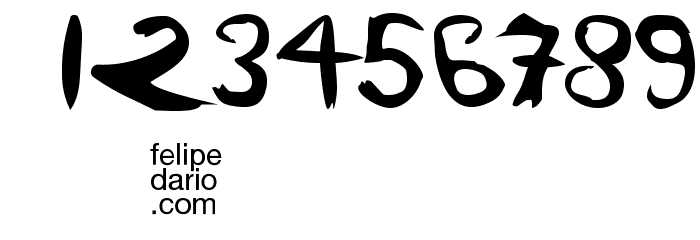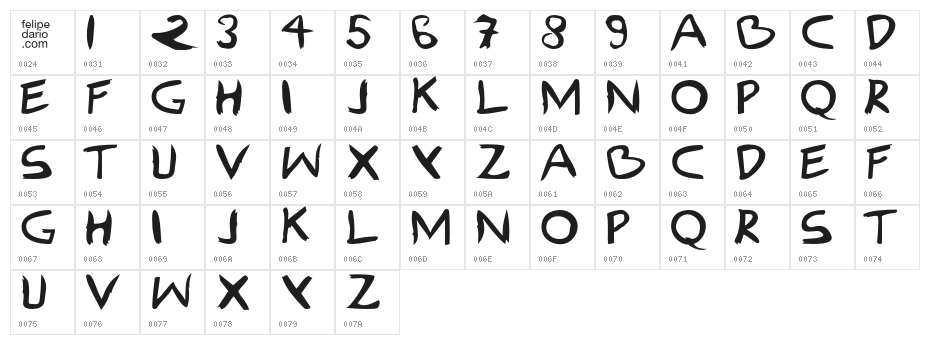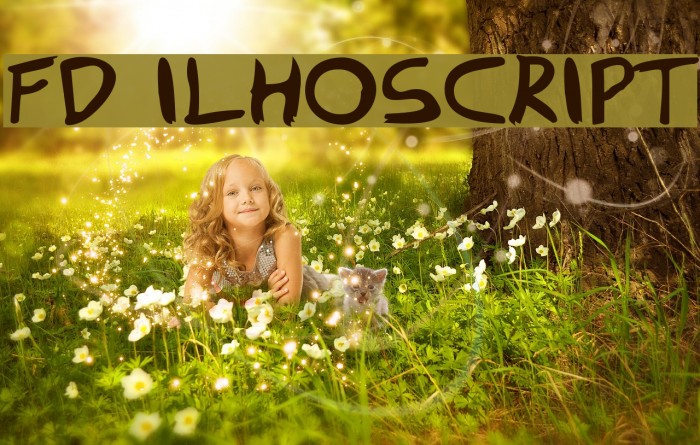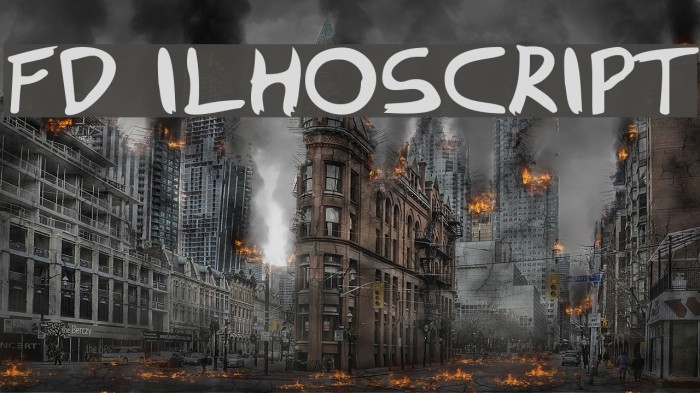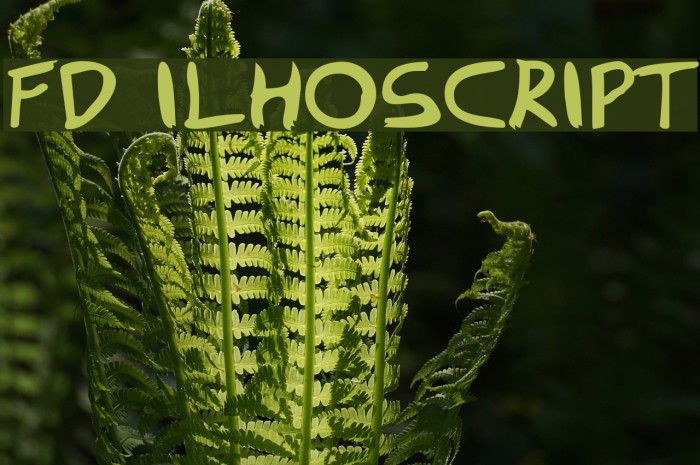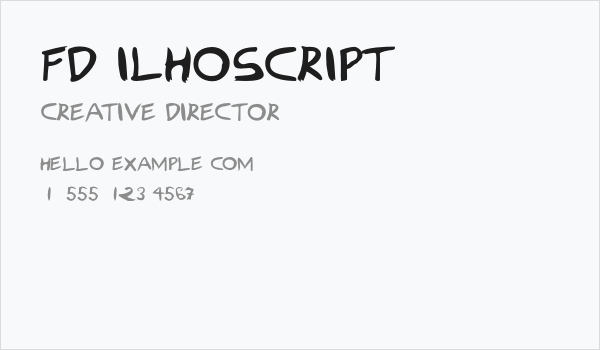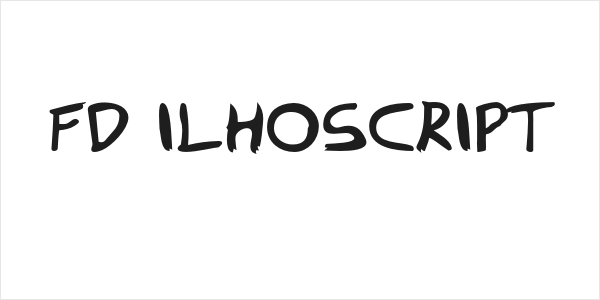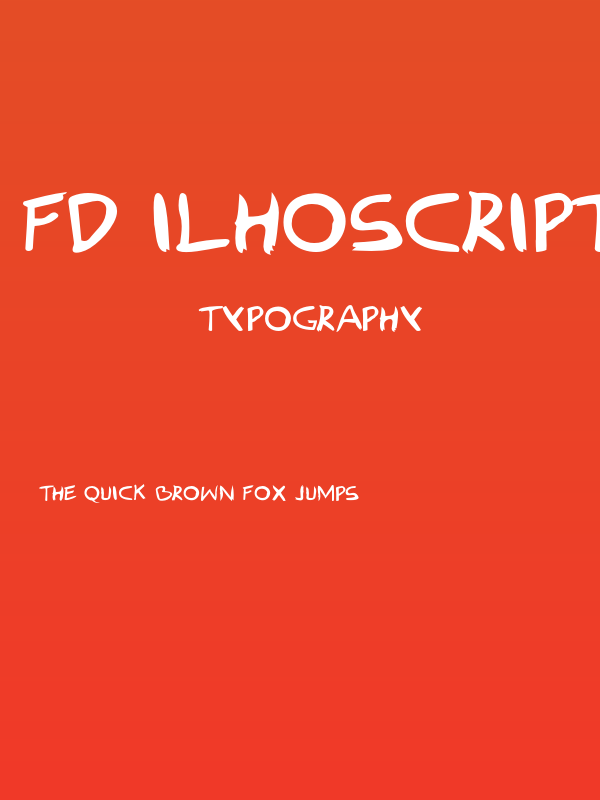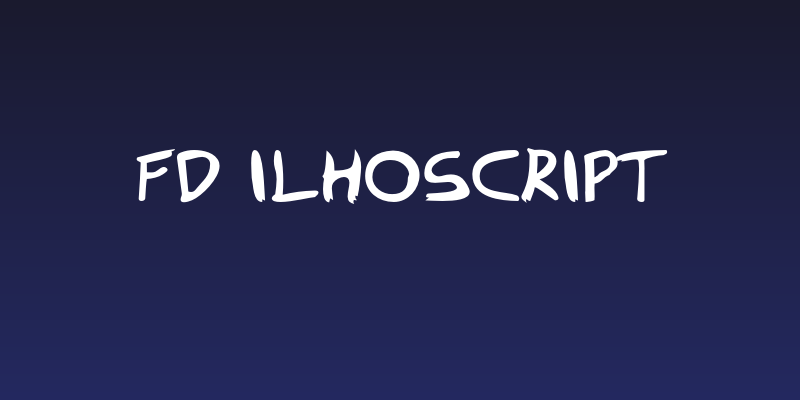
FD Ilhoscript Font
FD Ilhoscript Description
This font features a dynamic and expressive style, characterized by its bold and fluid strokes. The letters have a hand-drawn appearance, with varying thickness that adds a sense of movement and energy. The uppercase and lowercase letters maintain a consistent style, with a slight slant that gives them a forward momentum. The numbers are equally expressive, with unique shapes that complement the overall aesthetic. This font is ideal for projects that require a personal touch or a creative flair, making it suitable for artistic designs, branding, and headlines.
| Proposed Projects | Ideal for artistic designs, branding, headlines, and any project needing a creative flair. |